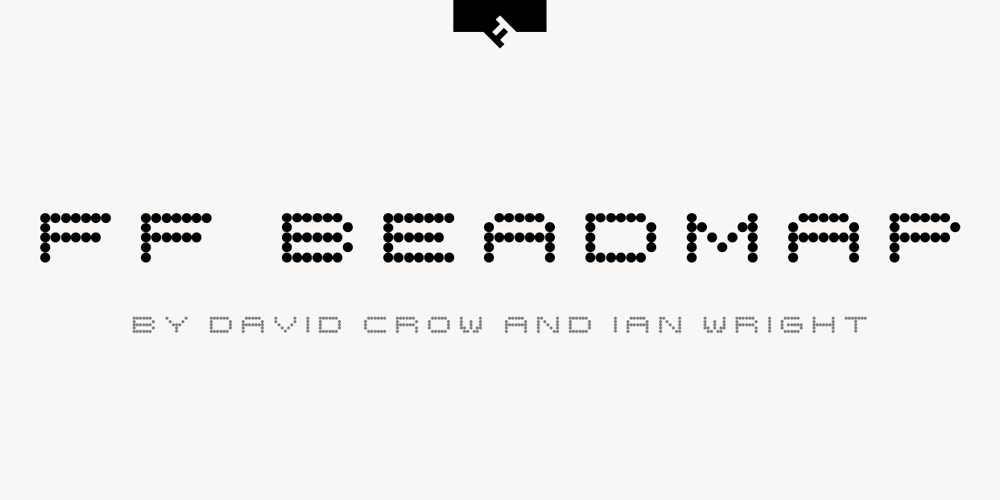
FF Beadmap Font Family was designed by David Crow, Ian Wright and published by FontFont. FF Beadmap contains 2 styles and family package options. British type designers David Crow and Ian Wright created this display FontFont in 2002. The family contains 2 weights and is ideally suited for advertising and packaging, editorial and publishing as well as poster and billboards. FF Beadmap provides advanced typographical support with features such as ligatures and case-sensitive forms. It comes with tabular lining figures.